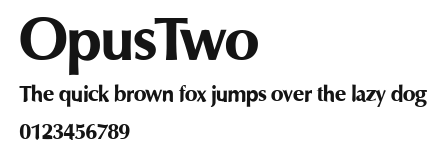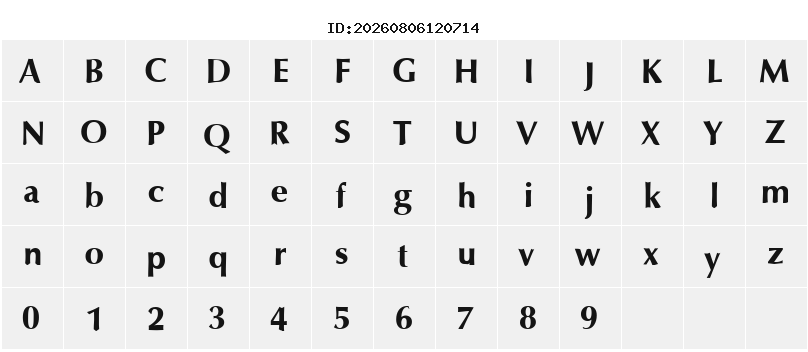
OpusTwo Preview
About OpusTwo.ttf
OpusTwo.ttf is a modern, elegant sans-serif font designed for ultimate readability and visual harmony. Perfect for branding, headlines, web design, and print materials.